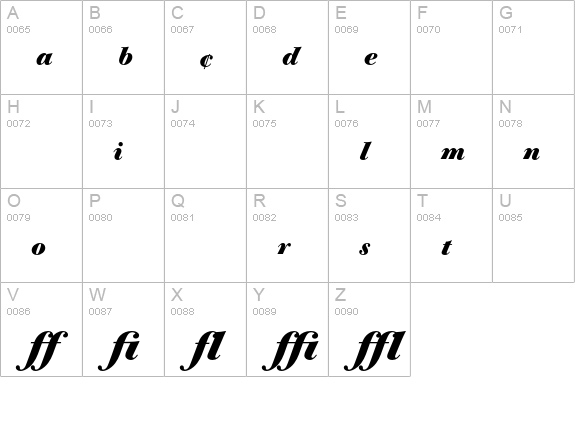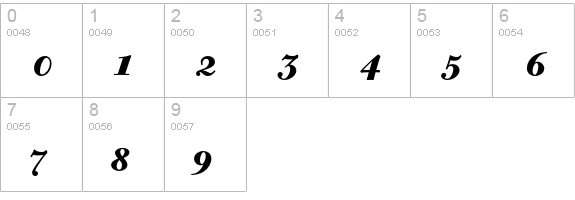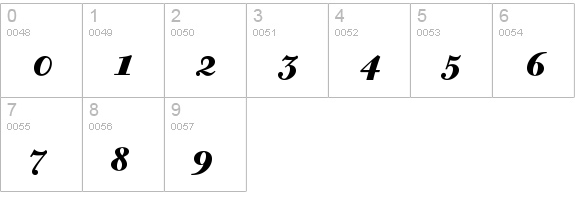
Bodoni Old Face BE Bold Italic Expert Font Details
Bodoni Old Face BE Bold Italic Expert is a strong, high-contrast, italic variant in the Bodoni typeface family \xE2\x80\x94 well suited to headlines, attention-grabbing titles, and strong calls-to-action.
Bodoni Old Face BE Bold Italic Expert font exudes a timeless elegance with its bold and italic design. Perfect for creating eye-catching headlines and important text, this font commands attention and adds a touch of sophistication to any project. The expertly crafted details of this font showcase the classic style of Bodoni Old Face, making it a versatile choice for various design applications. And the best part? Bodoni Old Face BE Bold Italic Expert font is available for free download at FontsMarket.com. This means you can easily access this beautiful font and elevate your designs without any cost. Don't miss out on the opportunity to enhance your projects with the bold and italic charm of Bodoni Old Face BE Bold Italic Expert font – download it now for free!